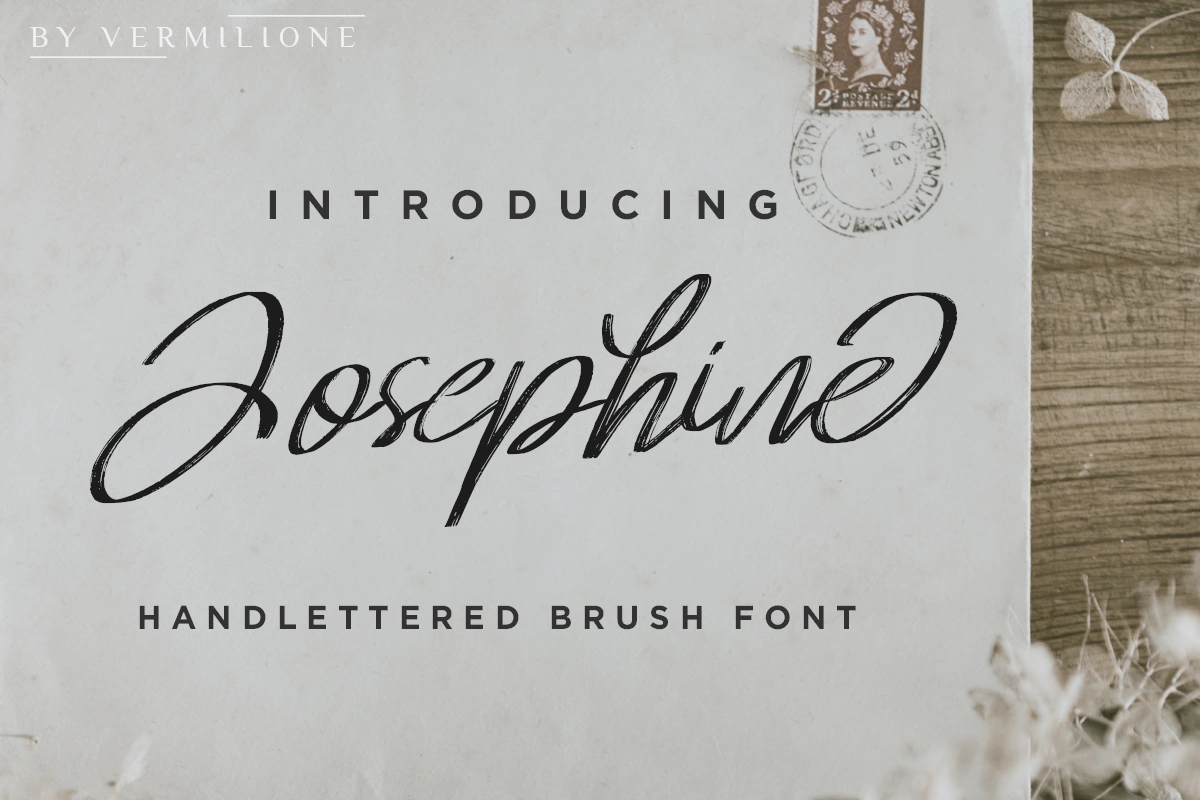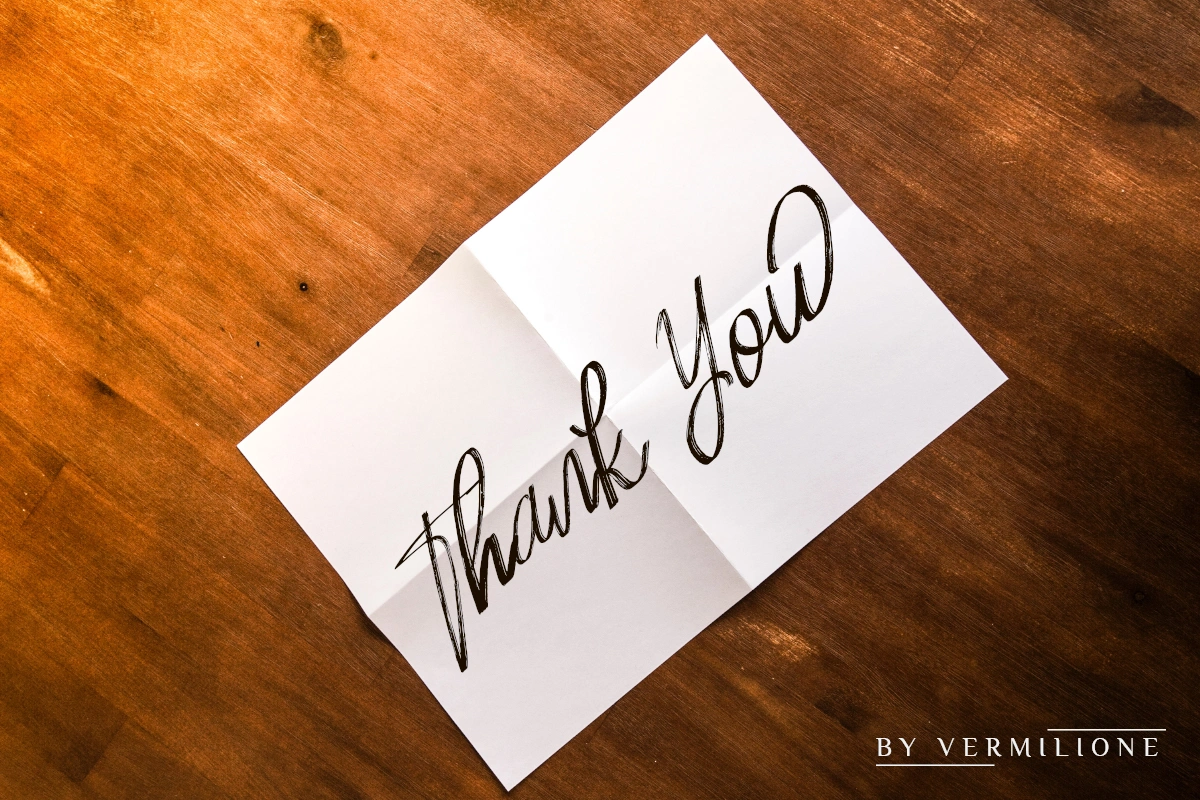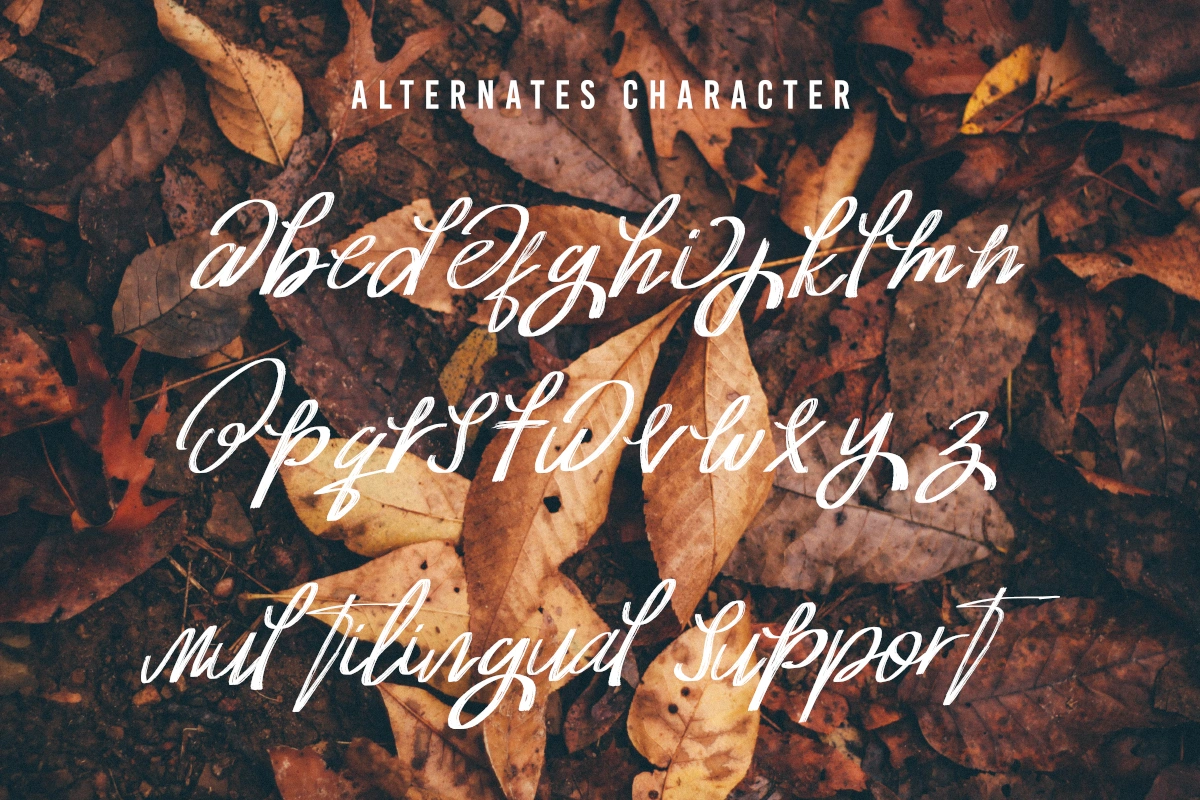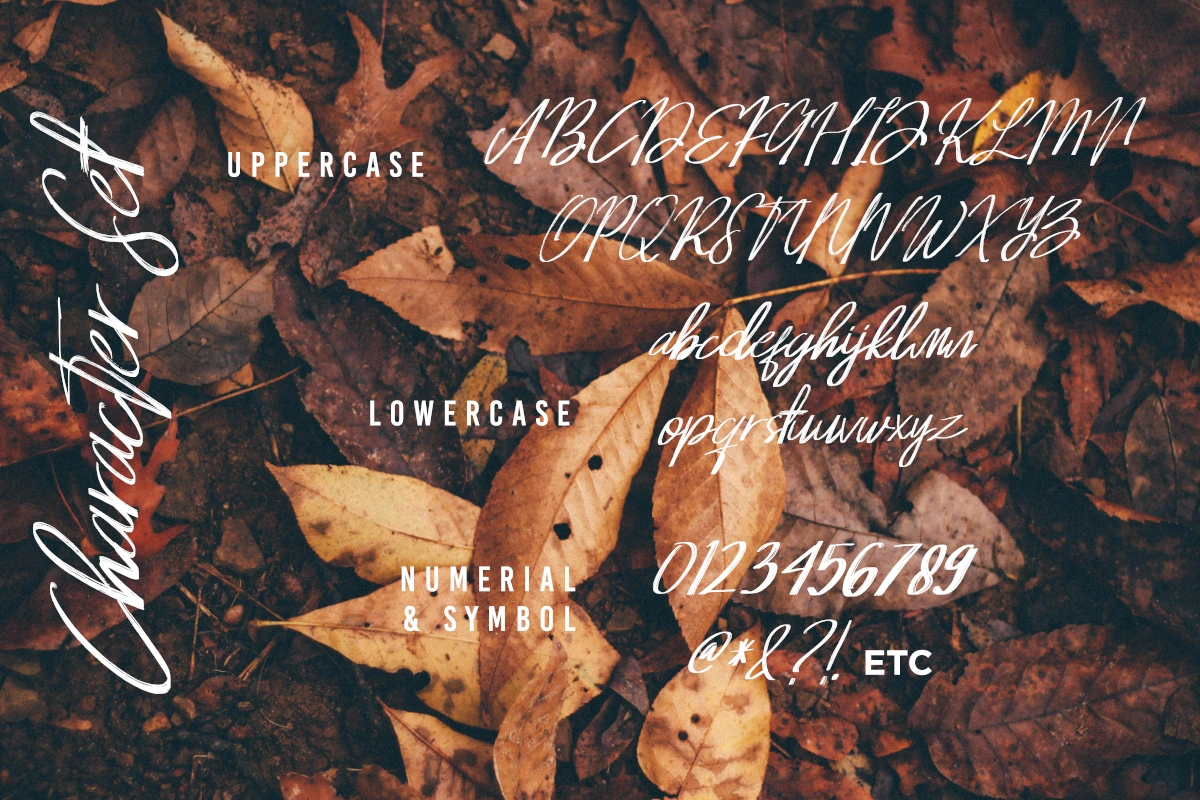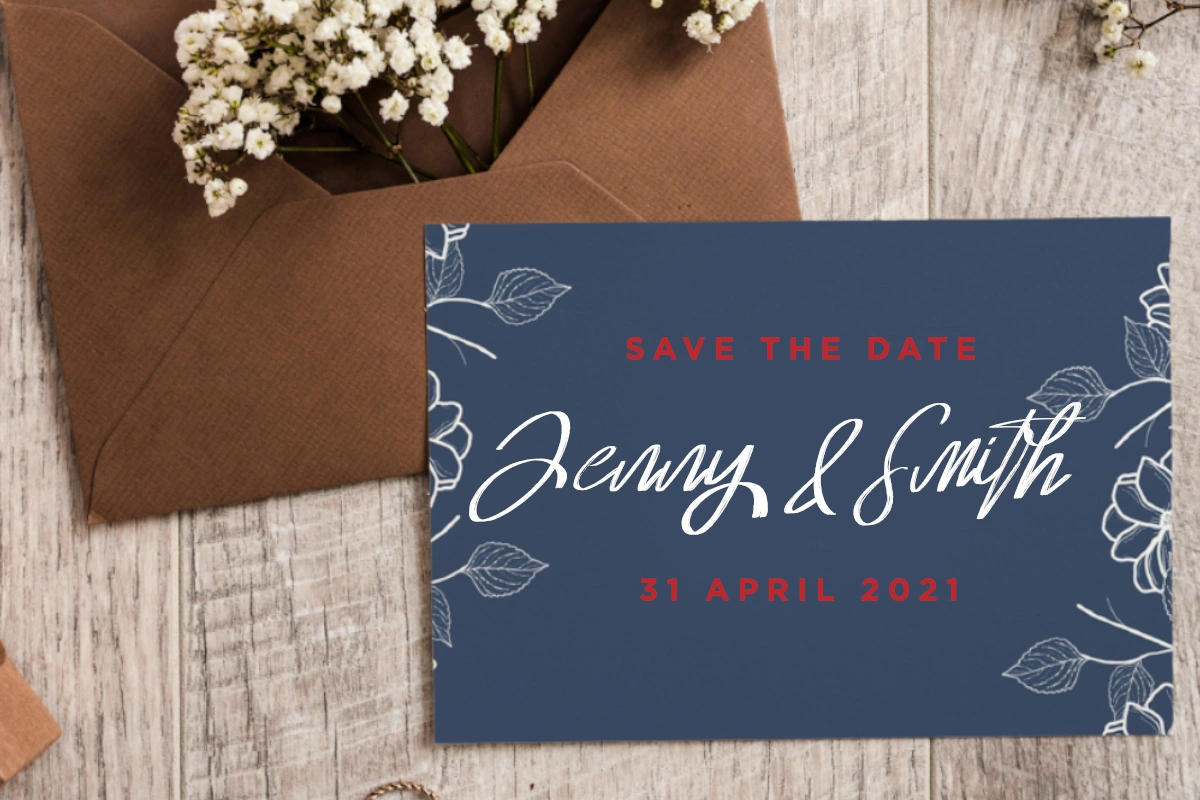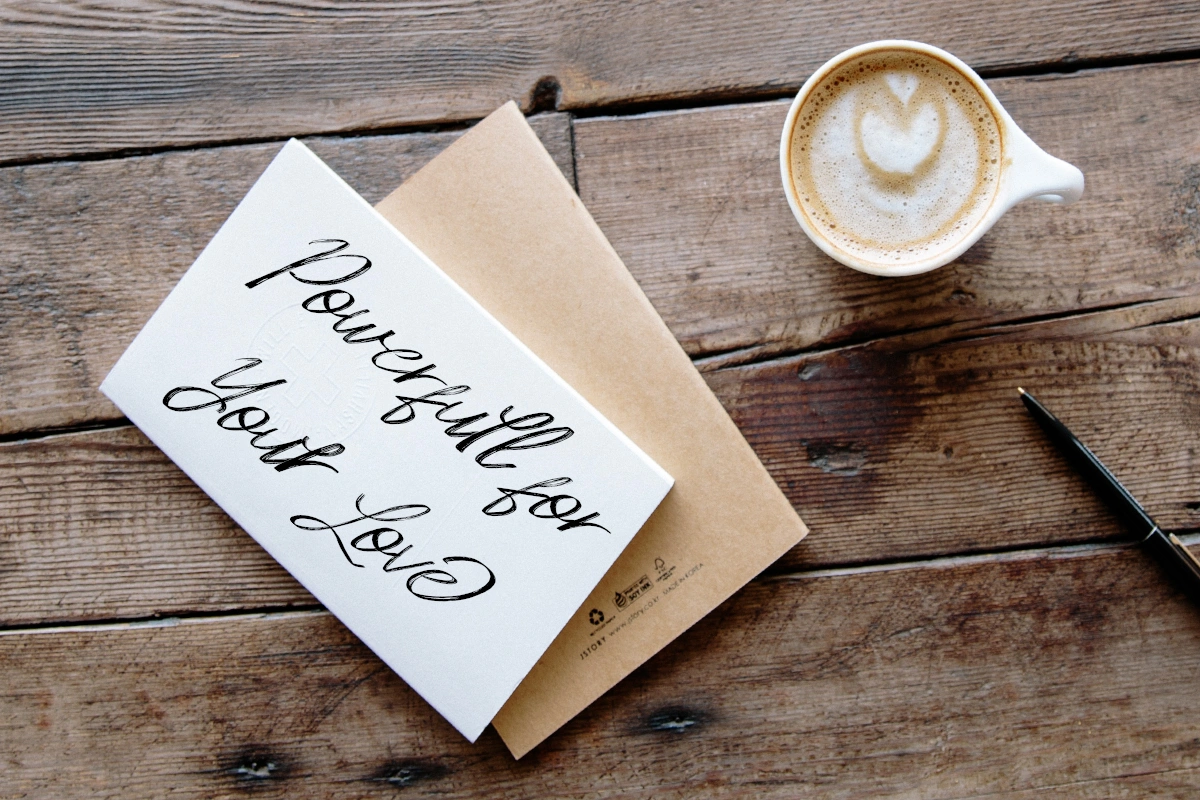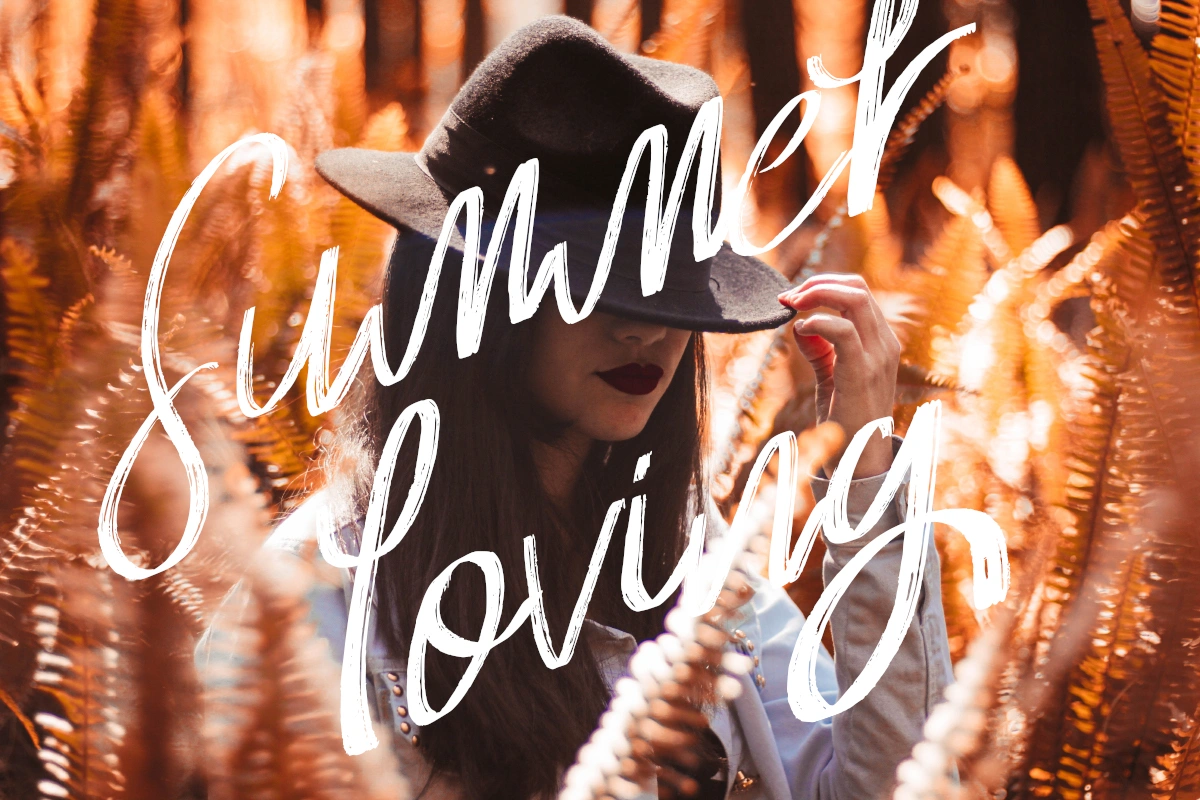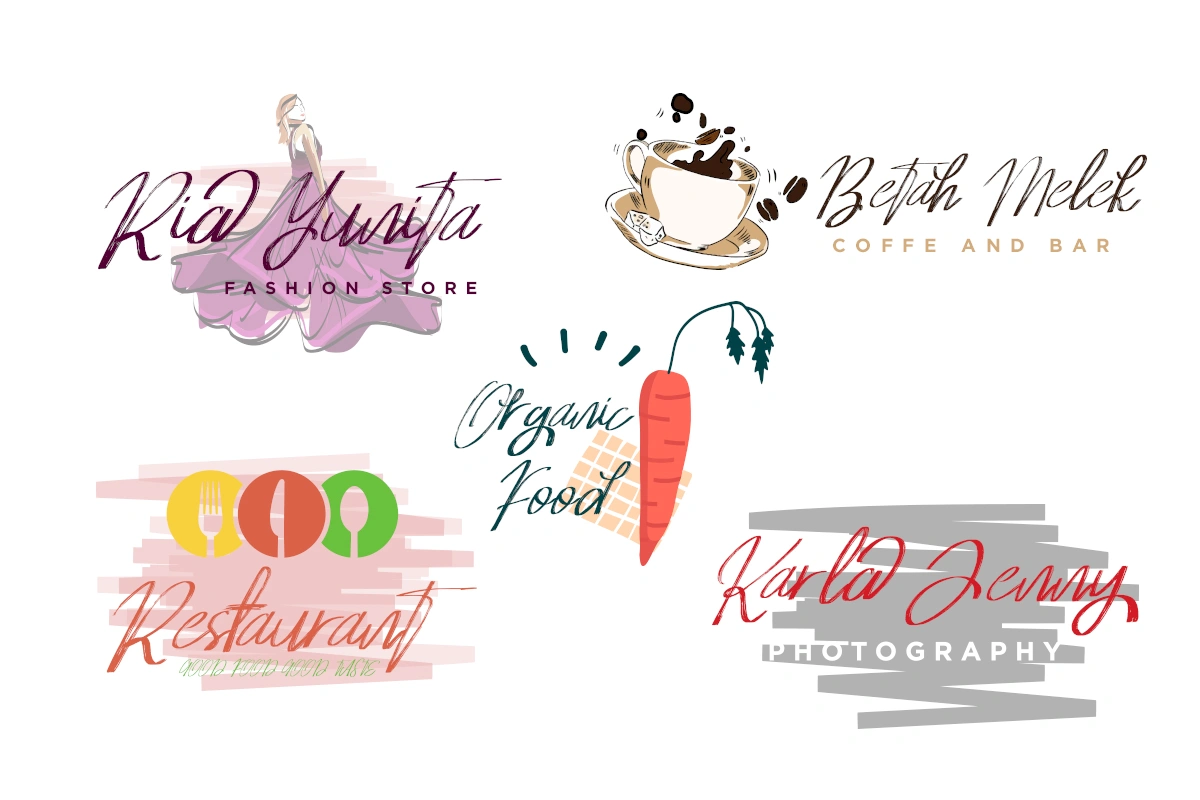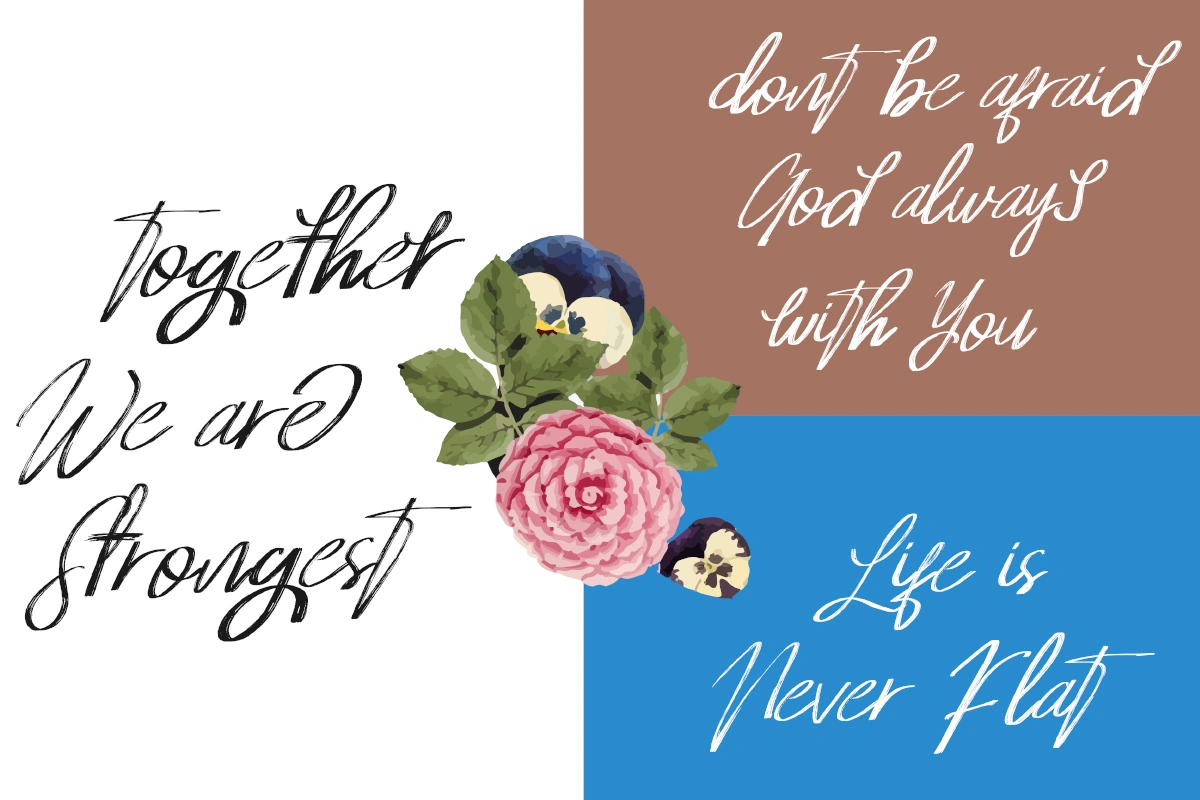
Josephine – Script Font
Josephine Brushes Font with tons of alternate characters. The pack can be accessed in full by any crafter or designer, without the requirement for extra design software, Compatible with silhouette & Cricut Design Space Josephine Brush Script, a handmade font with a brush that is so soft, perfect for your next design, such as logos, printed quotes, handwritten quotes, invitations, cards, product packaging, merchandise, social media & greeting cards, headers and and anything else about your imagination.
Josephine Brush Script It contains a full set of lowercase & uppercase, some of punctuation, numerals, and multilingual support. The font also stylistic alternates, for you who have opentype capable software (e.g. Photoshop/Illustrator, Corel Draw).